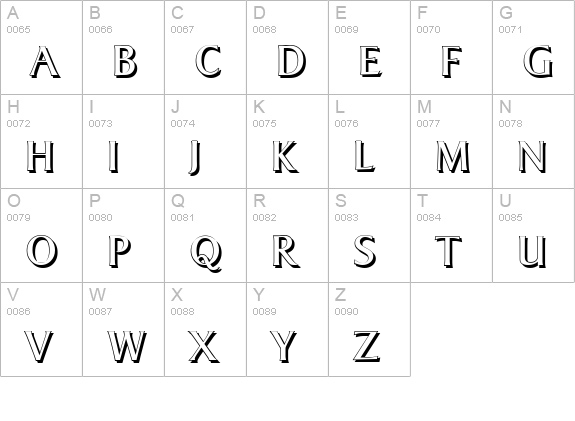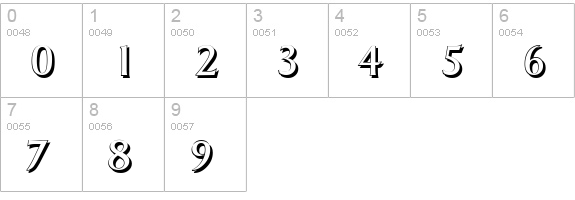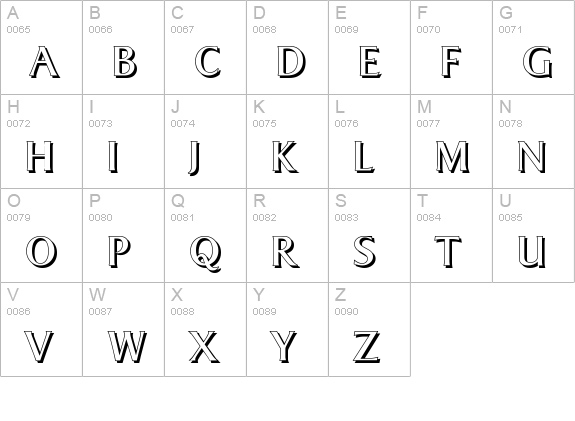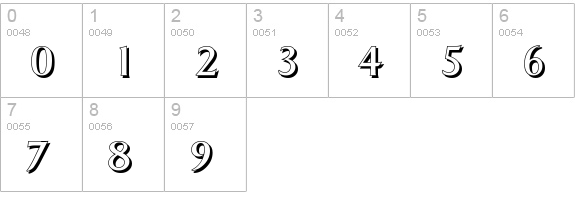
SigvarShadow-Regular is the standard, neutral variant in the SigvarShadow typeface family \xE2\x80\x94 well suited to general body text, paragraphs, and standard typographic work.
SigvarShadow-Regular is a stylish and versatile font that combines modern elegance with a touch of vintage charm. This font features unique shadow effects that add depth and dimension to your designs, making it perfect for a wide range of projects. Whether you're creating posters, invitations, logos, or branding materials, SigvarShadow-Regular is sure to make a statement. The best part? SigvarShadow-Regular is completely free to download at FontsMarket.com. Simply visit the website to access this gorgeous font and elevate your designs with its sophisticated appeal. Don't miss out on the opportunity to add SigvarShadow-Regular to your font collection today!